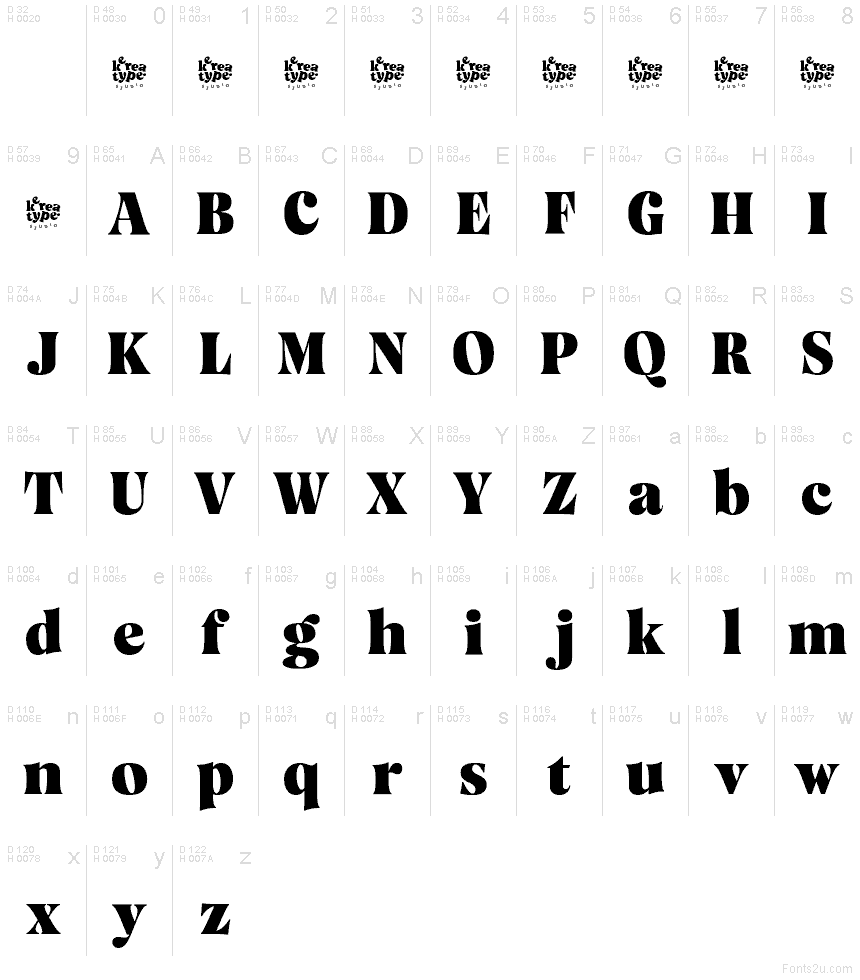
Mazaeni Demo Extra Bold
Mazaeni Extra Bold font by Kereatype Studio is a free extra-bold decorative serif font. Built within the Mazaeni family, it leans into voluptuous curves, razor-edged wedge serifs, and inky, high-contrast strokes that look carved rather than drawn. The counters stay open despite the heft, so headlines read with a confident, glossy snap instead of a muddy thud.
Using Mazaeni Extra Bold, your titles carry instant stature—shining on editorial mastheads, luxury branding, cosmetics packaging, fashion lookbooks, restaurant menus, and dramatic poster headlines. Its sculpted rhythm and tight spacing create a bold, cinematic pace that grabs from across the room. This free font pairs beautifully with a clean geometric sans in small text to let the serif do the talking.